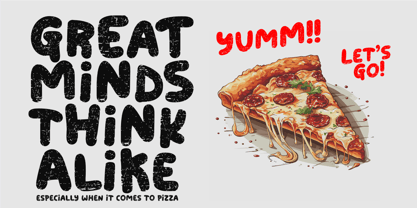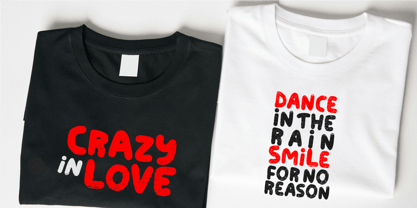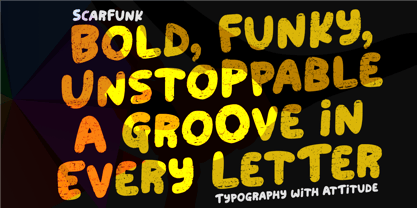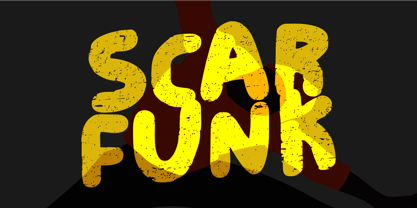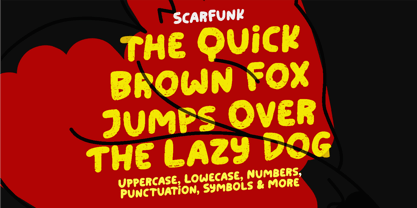
Scarfunk
Die Schriftfamilie Scarfunk wurde von Aldy Sidik entworfen und von Epiclinez veröffentlicht. Scarfunk enthält 1 Stile. Mehr über diese Familie
Scarfunk isn’t just a font—it’s an attitude. Bold, funky, and unstoppable, this typeface brings a groove to every letter with its thick, daring strokes and effortlessly cool texture. Designed for those who want their words to stand out, Scarfunk blends retro funk vibes with a modern edge, making it perfect for posters, branding, music covers, and anything that demands attention. Whether you're crafting a vintage-inspired logo or a rebellious streetwear design, this typography with attitude delivers high-energy lettering that refuses to be ignored. If you're looking for a font that’s as unstoppable as your ideas, Scarfunk is the one.
Scarfunk Font features :
• Uppercase & Lowercase
• Numbers, symbols, and punctuations
• Multilingual Support.